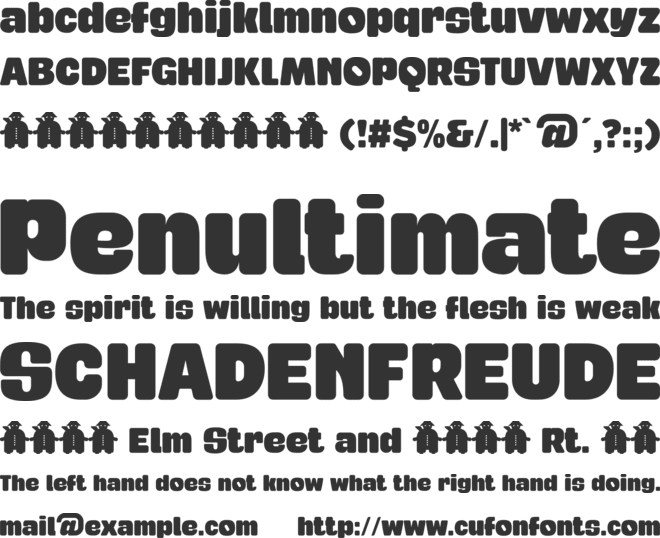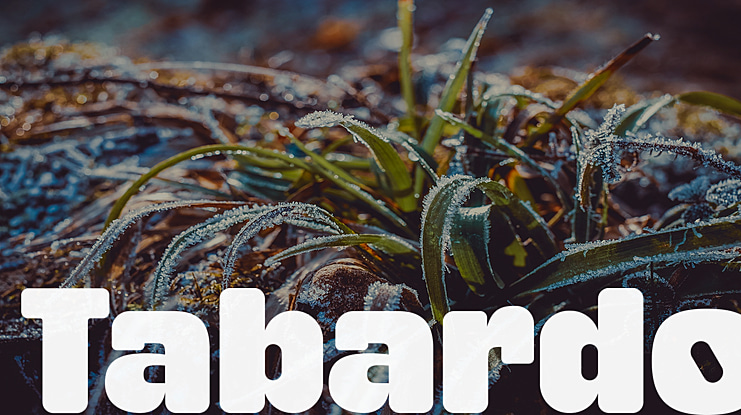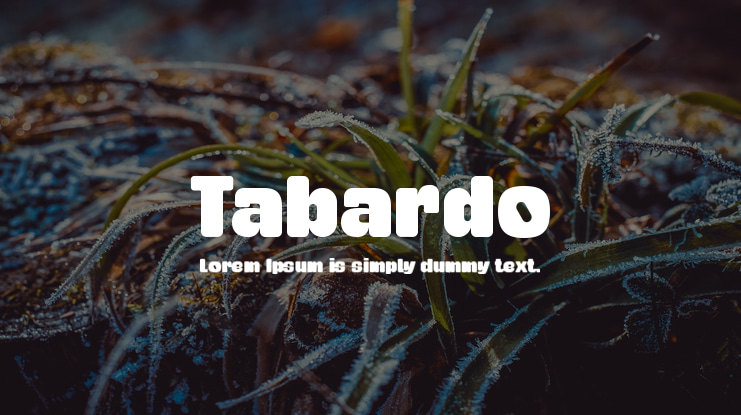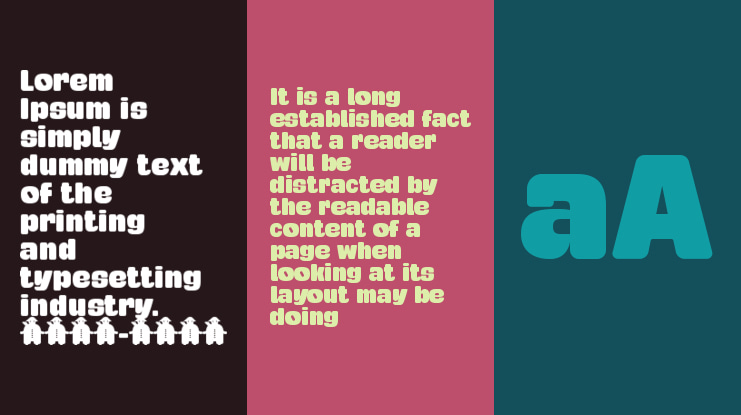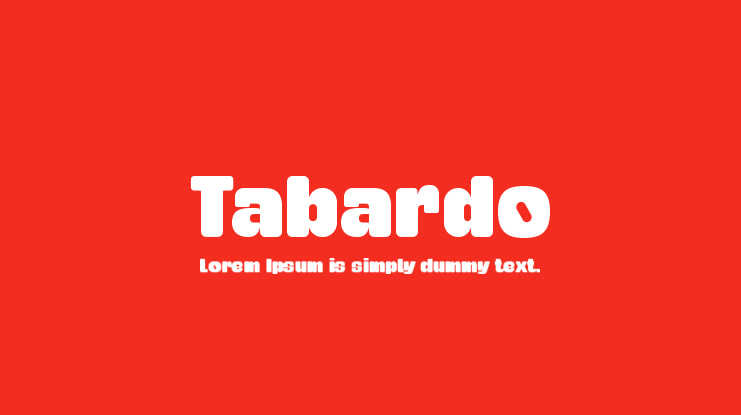
Tabardo Font
Decorative display font, Sans Serif square proportions, very thick and rounded. The close spacing between characters and the detailed configuration Kerning make this typeface is very legible.
I hope you find it useful for titles, banners, posters or graphic design which seeks a robust and spectacular style.
The commercial version has 650 glyphs (Latin Extended) Open Type includes functions for ligatures, alternate letters, old style numbers, fractions, and the Greek alphabet.